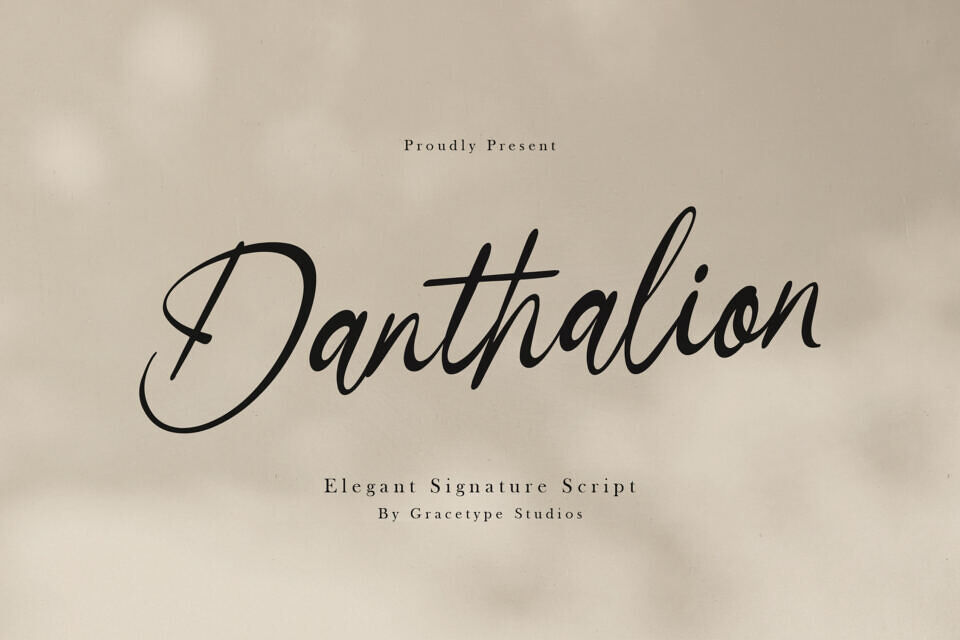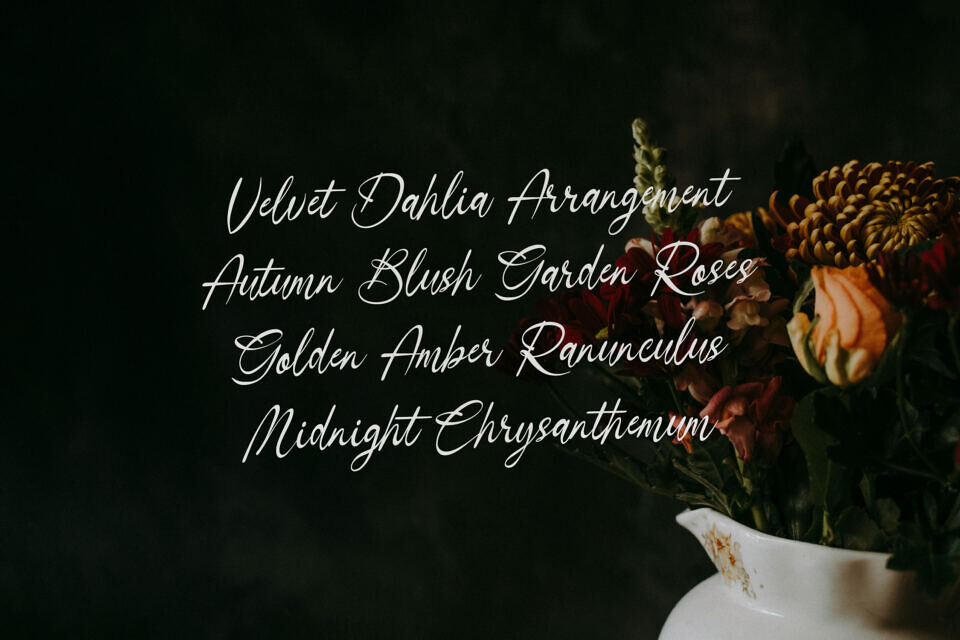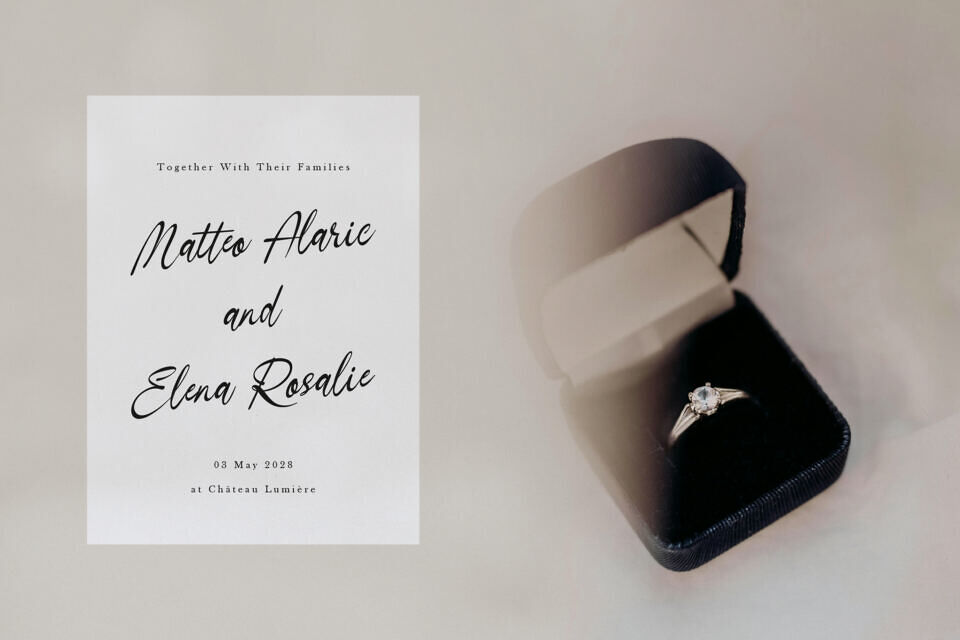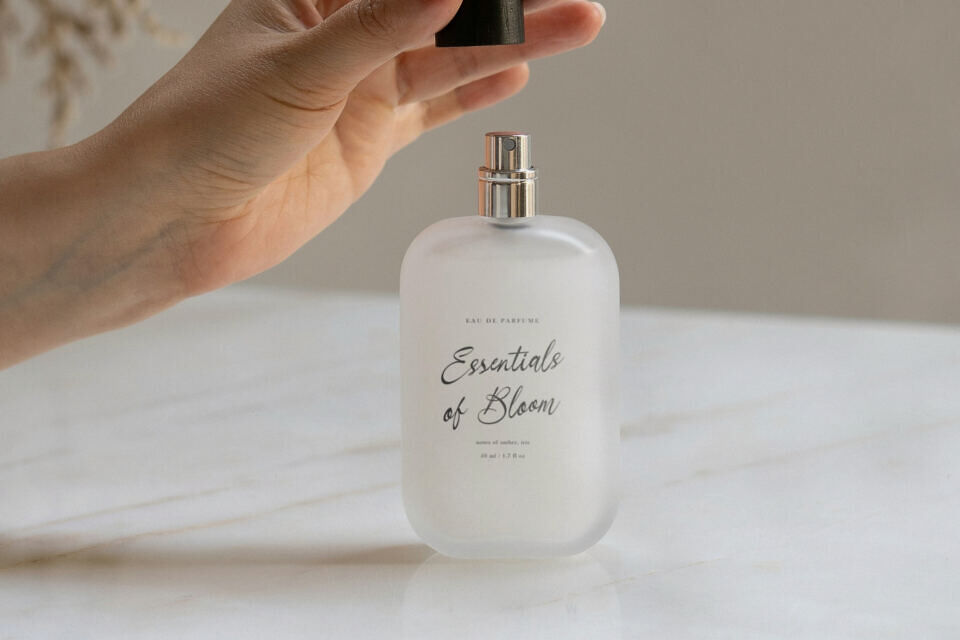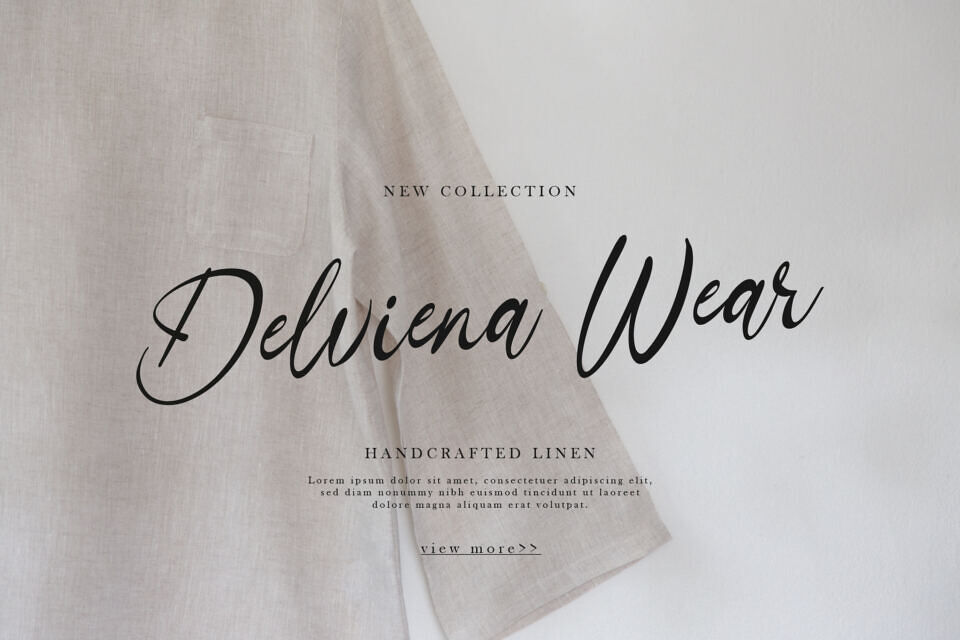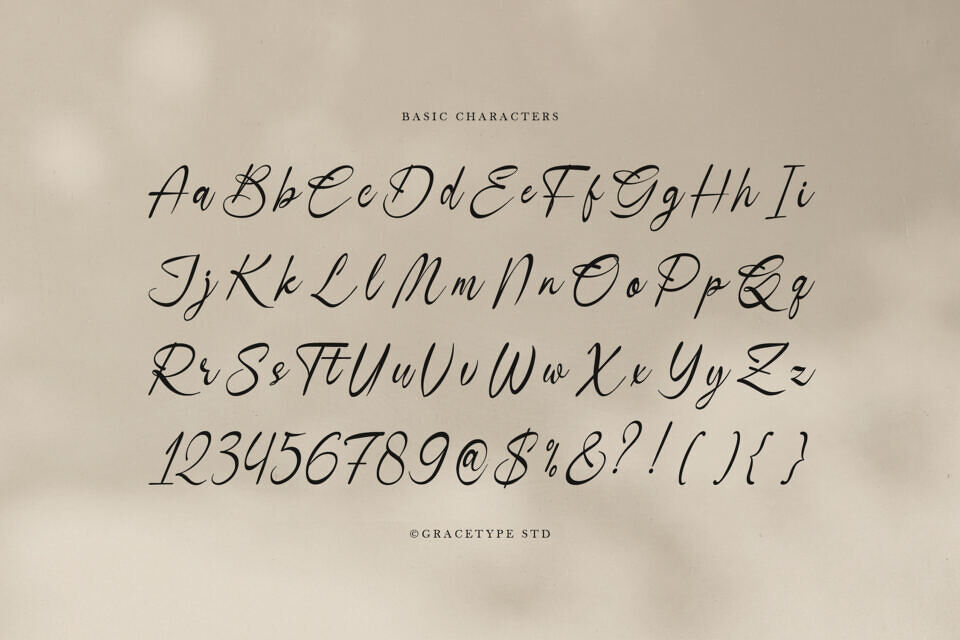
Danthalion Font
Elevate your brand identity with Danthalion, one elegant signature script. This typeface is meticulously crafted to capture the fluid, confident motion of professional calligraphy, featuring a rhythmic flow that feels both personal and high-end. Ideal for high-end boutique logos, executive business cards, luxury photography watermarks, and editorial fashion spreads.